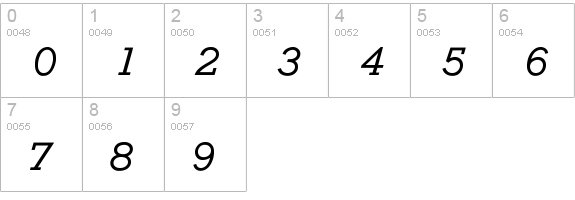
Stymie BQ Italic Font Details
Stymie BQ Italic is a distinctive, italic variant in the Stymie typeface family \xE2\x80\x94 well suited to design and typography projects.
Stymie BQ Italic font is a stylish and modern typeface that exudes sophistication and elegance. With its sleek slanted design, this font is perfect for adding a touch of flair to any project. The italicized characters provide a sense of movement and dynamism, making your text stand out with a unique charm. What's even better is that Stymie BQ Italic font is available for free download at FontsMarket.com. You can easily access this font and use it for personal or commercial projects without any cost. Enhance your designs with the sleek and refined aesthetics of Stymie BQ Italic font today!